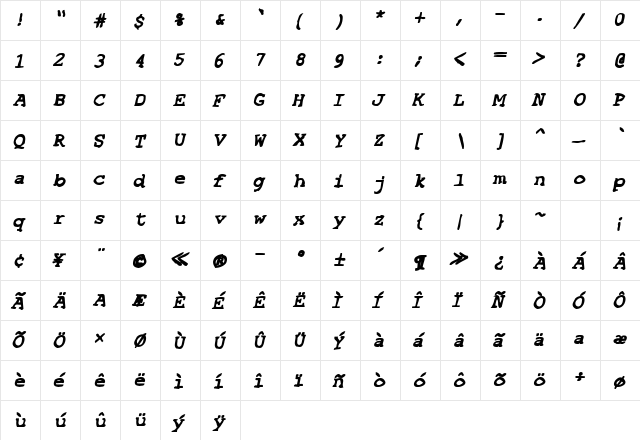
SF Espionage Heavy Oblique
Design Context for SF Espionage Heavy Typeface
SF Espionage Heavy takes a measured approach to typography — its balanced proportions and neutral character make it a reliable workhorse for both digital and print work. Its italic angle brings a sense of urgency and motion to the letterforms.
Pro Tip: Use SF Espionage Heavy for emphasis, pull quotes, and subheadings where its slanted energy can add rhythm to the layout.